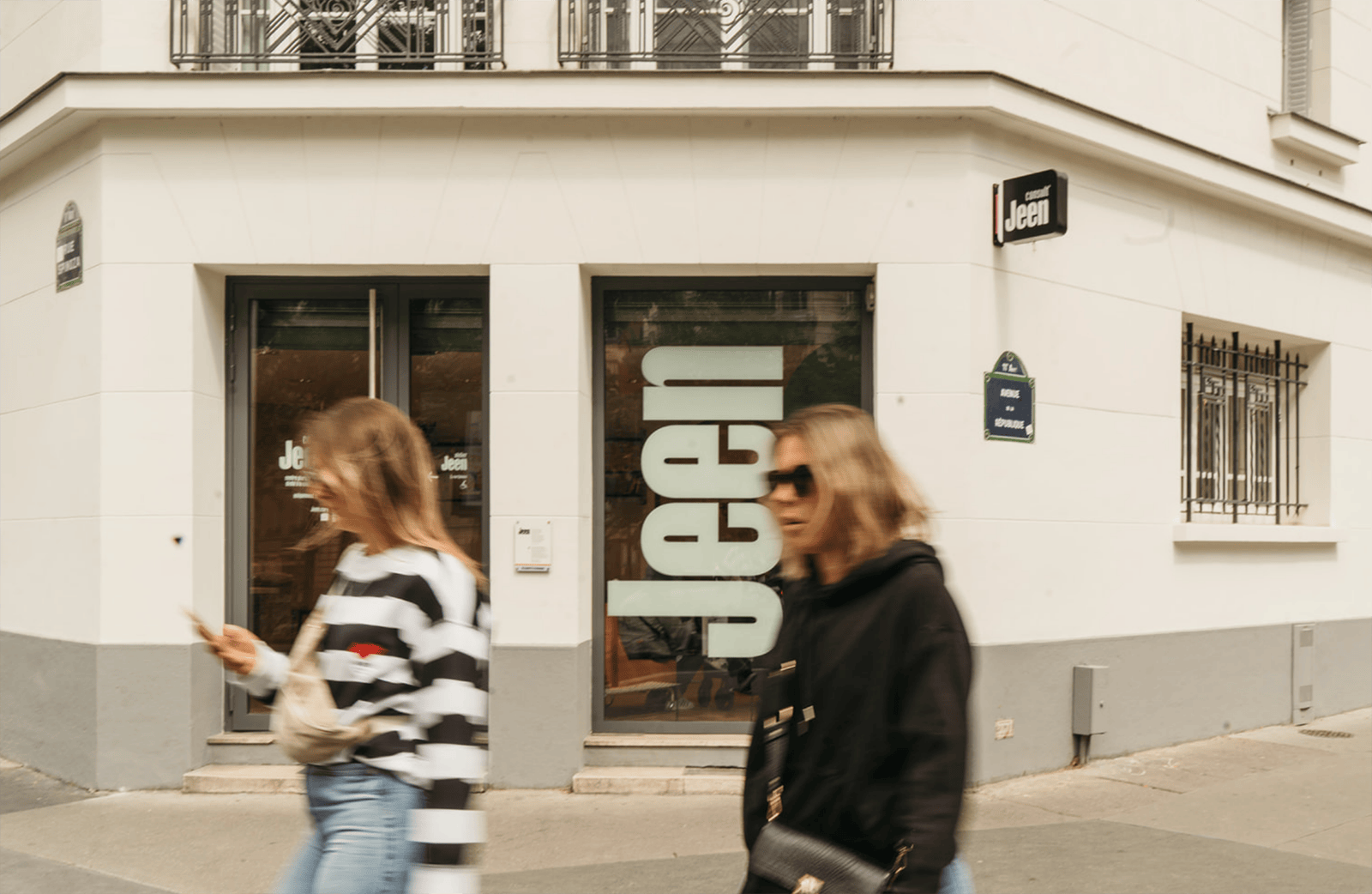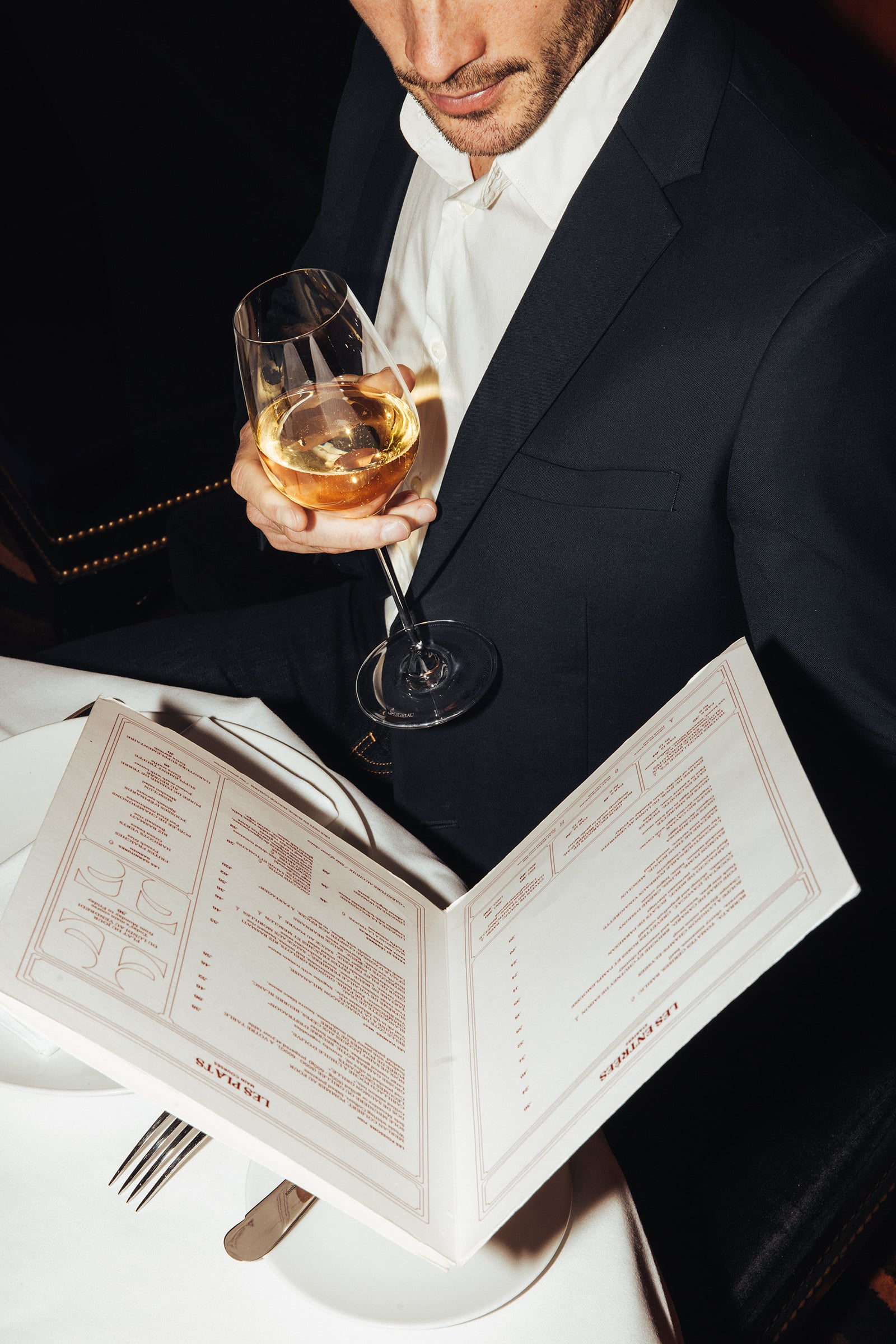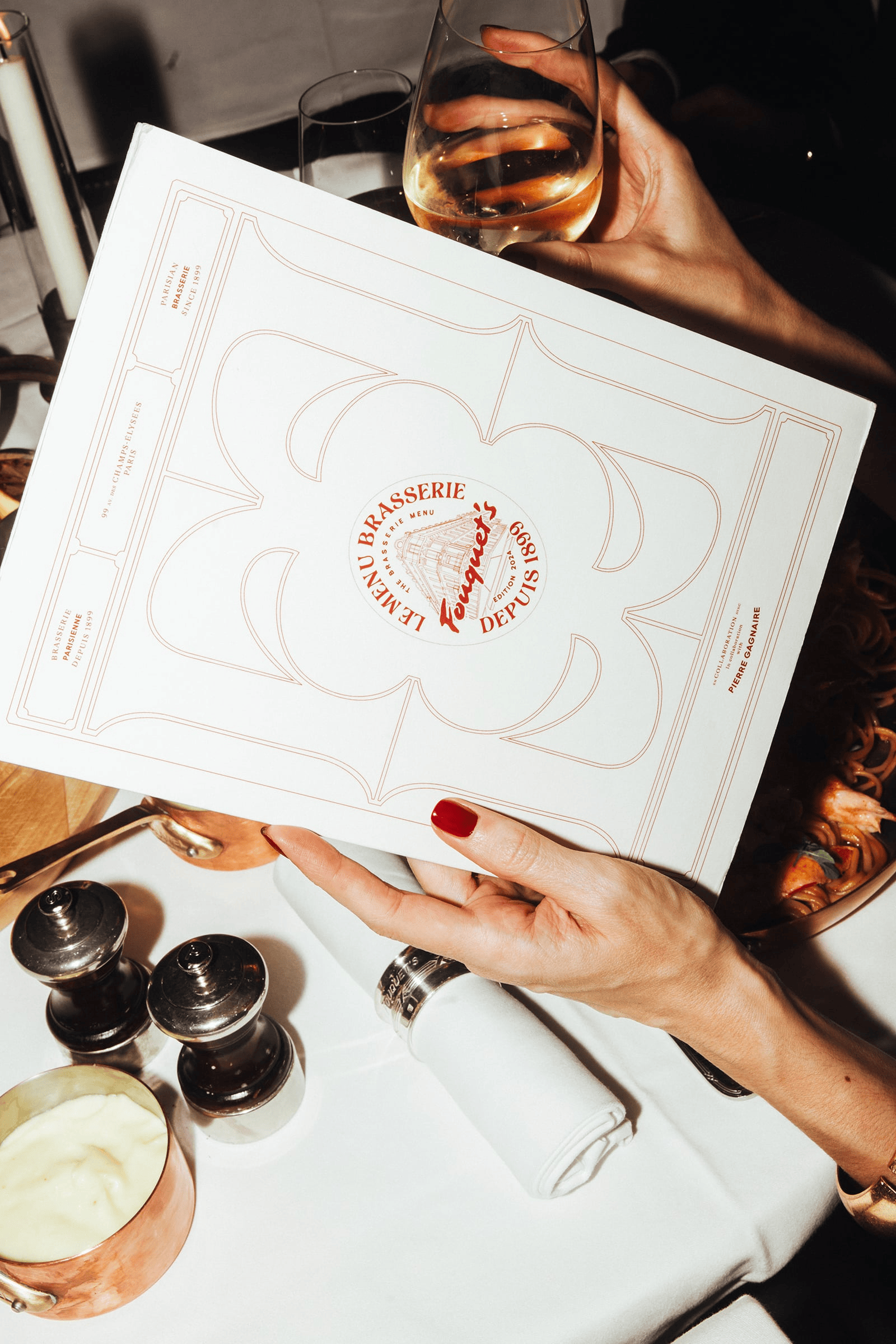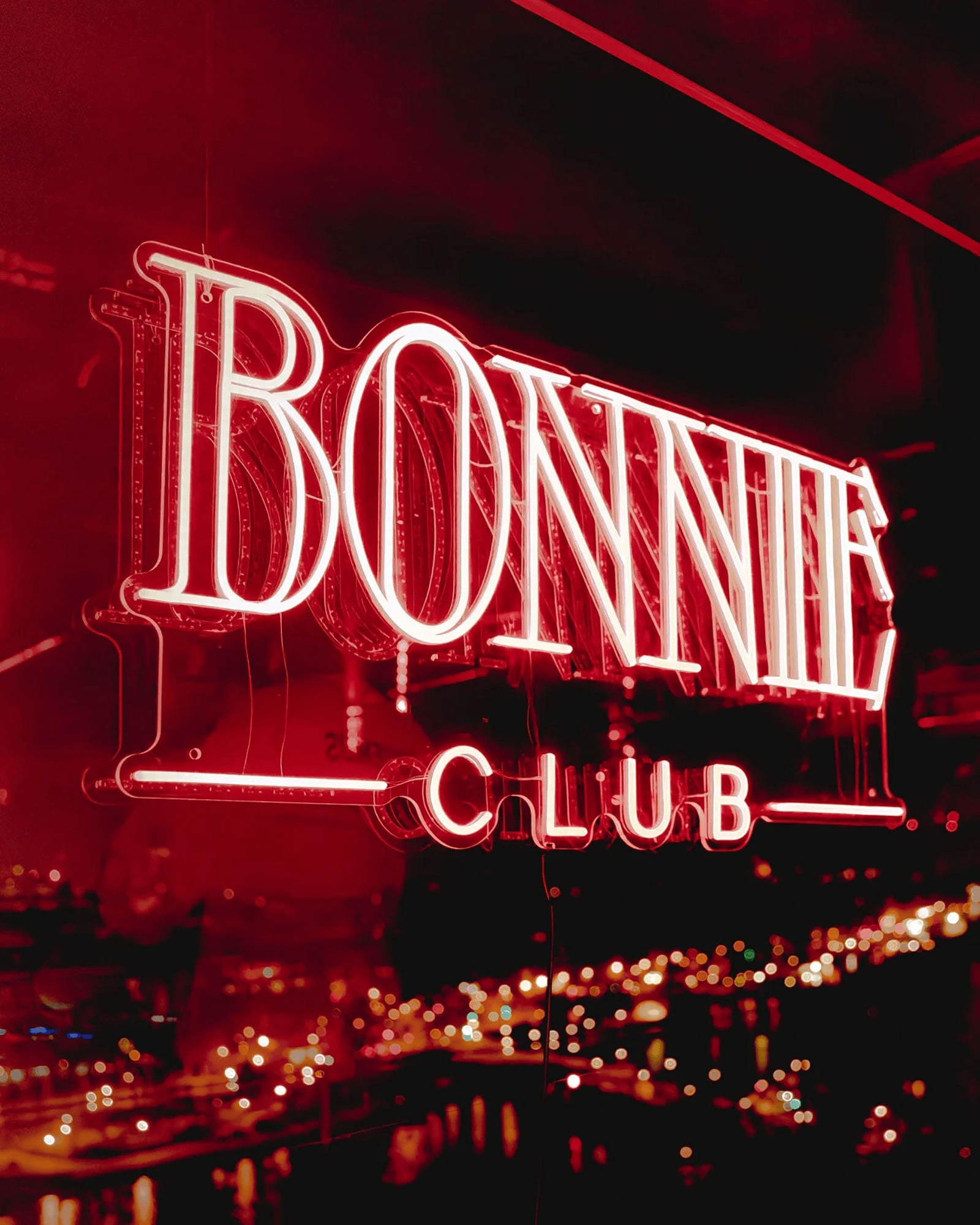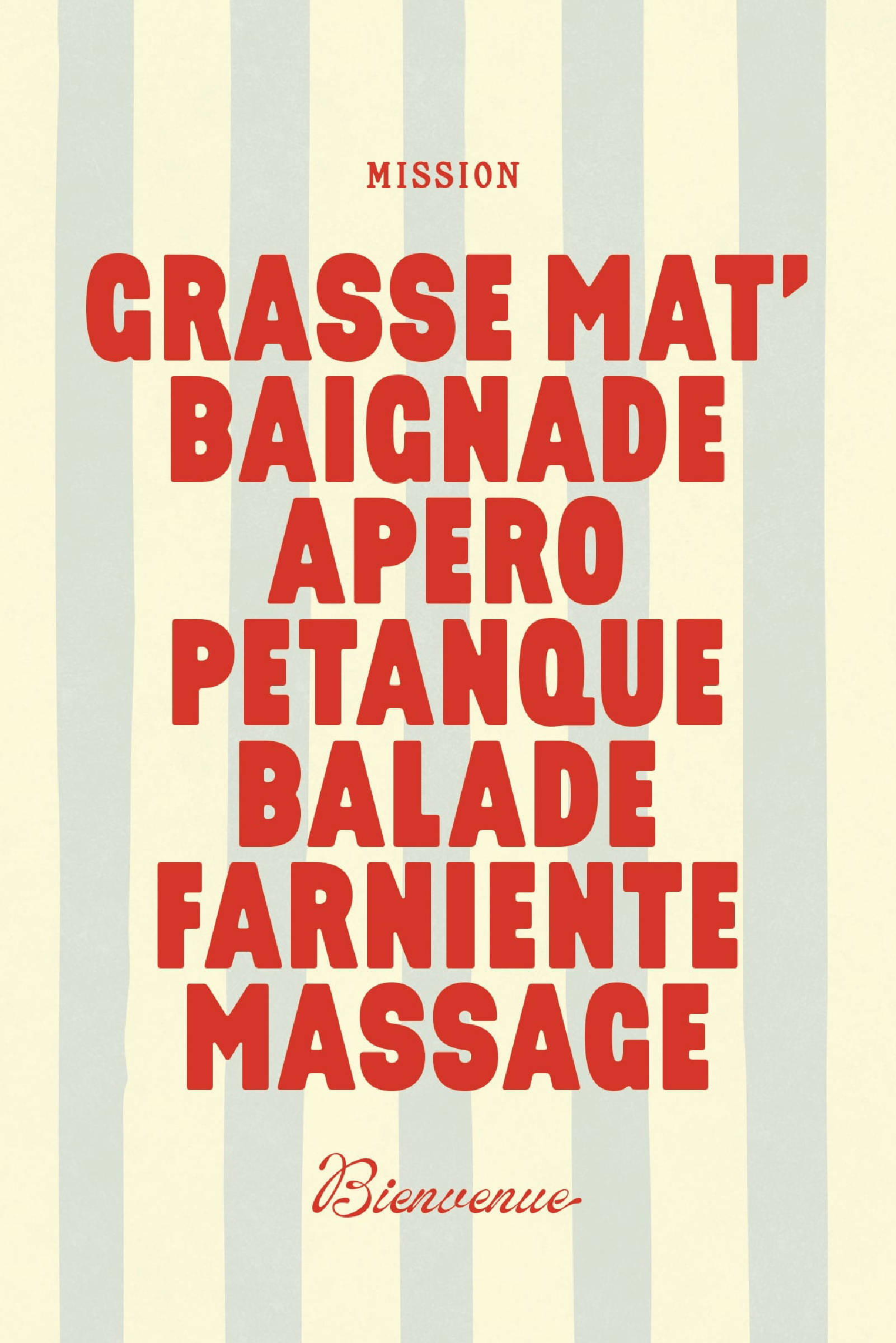
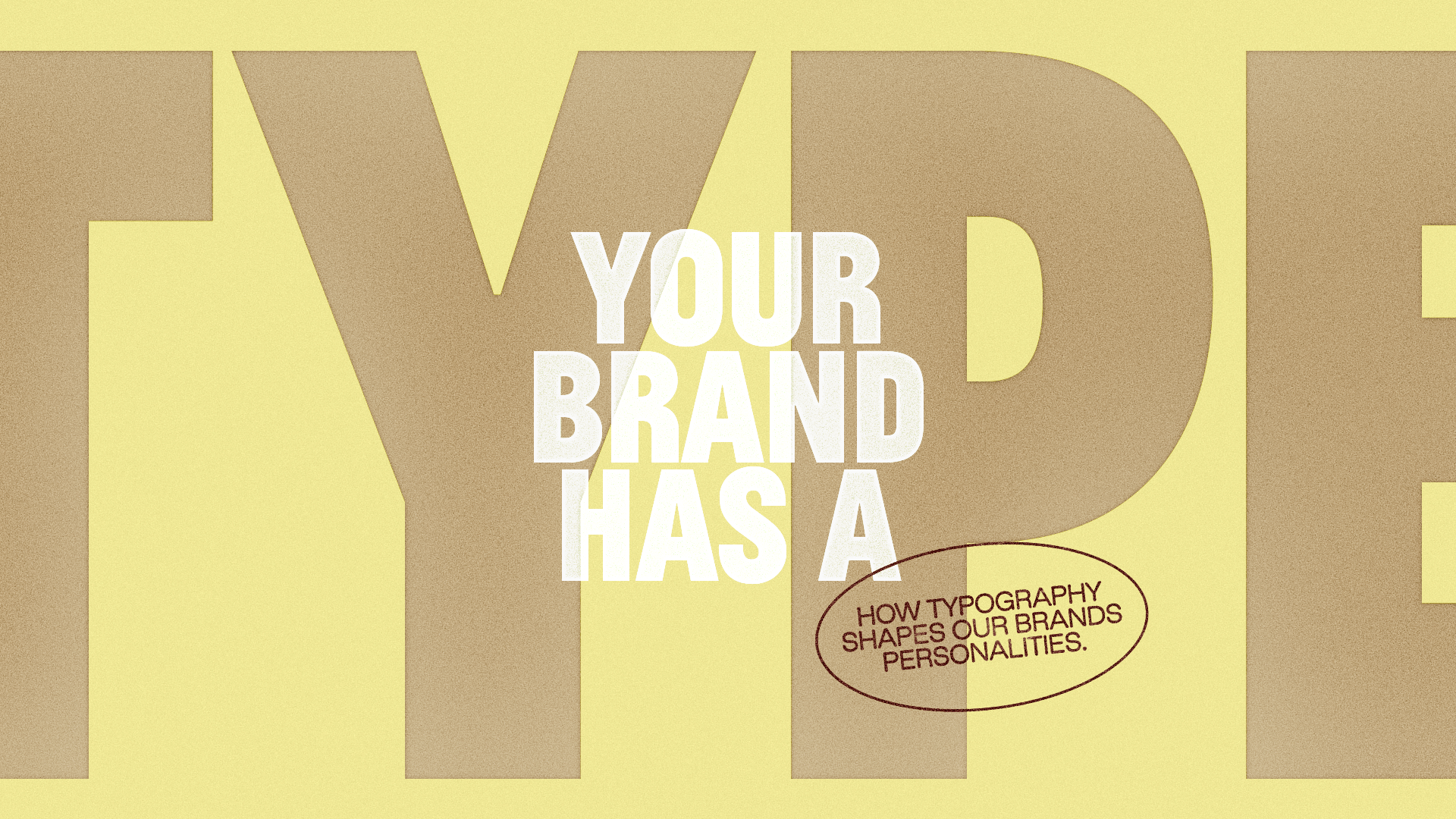
This talk dives into the powerful role typography plays in shaping brand personality. Using real case studies from our work, we’ll demonstrate how type can set the mood, convey values, and, in some cases, carry an entire brand on its own.